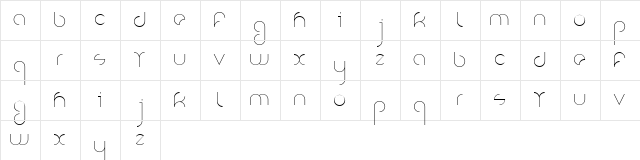
Nioubes Font UltraLight
| Foundry | Beno?t Sjoholm |
| Designer | beno?t sjoholm |
Design Context for Nioubes Font Typeface
Nioubes Font offers clean, dependable letterforms without strong stylistic allegiance, making it a practical choice for designers who need flexibility. Its slender proportions lend an understated elegance to any composition.